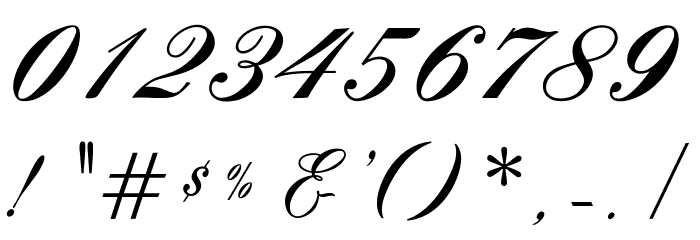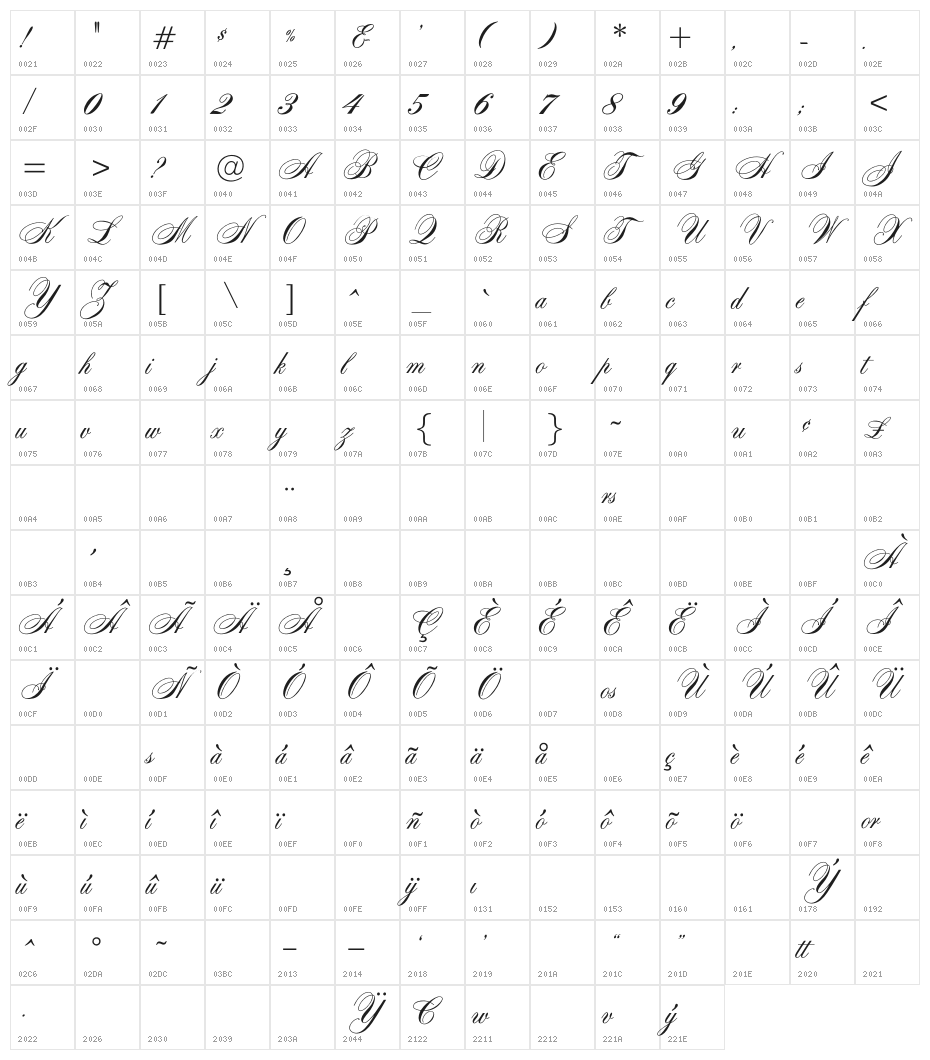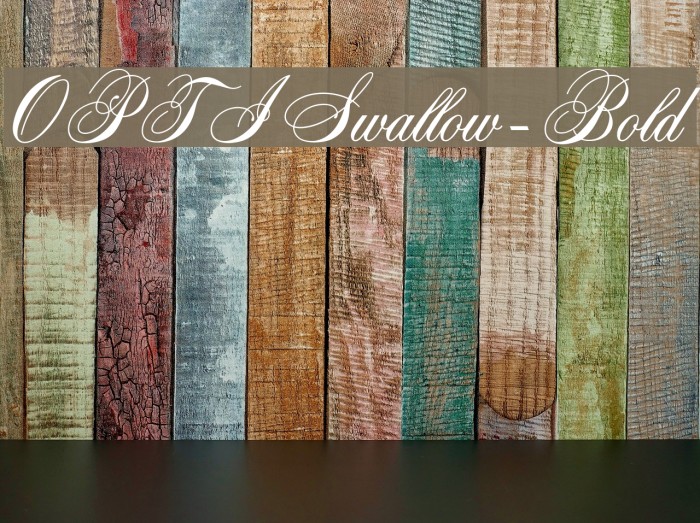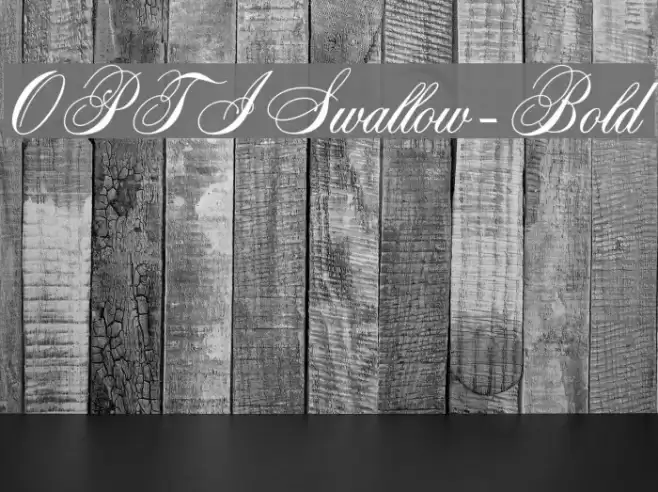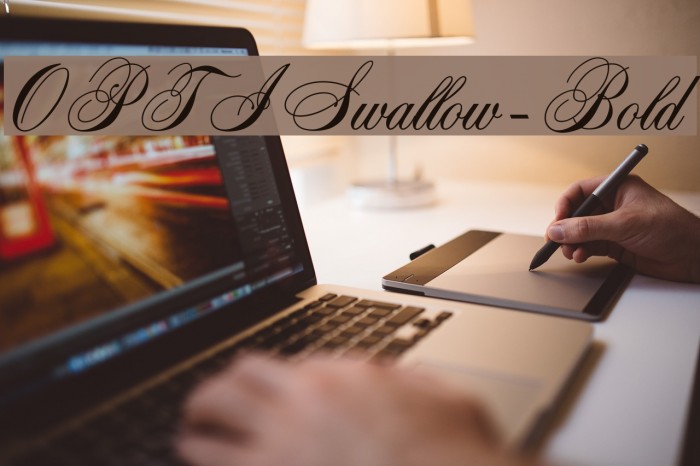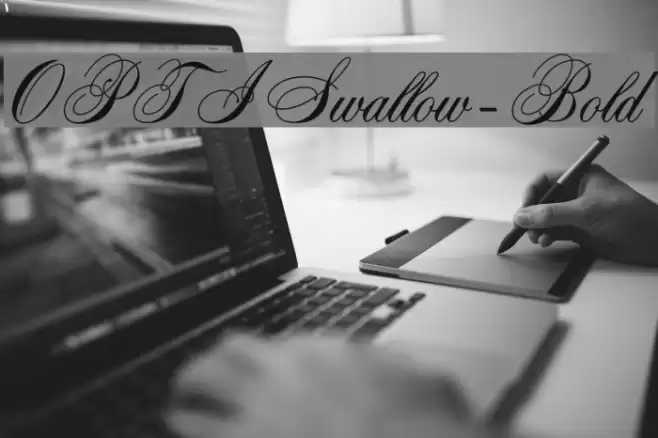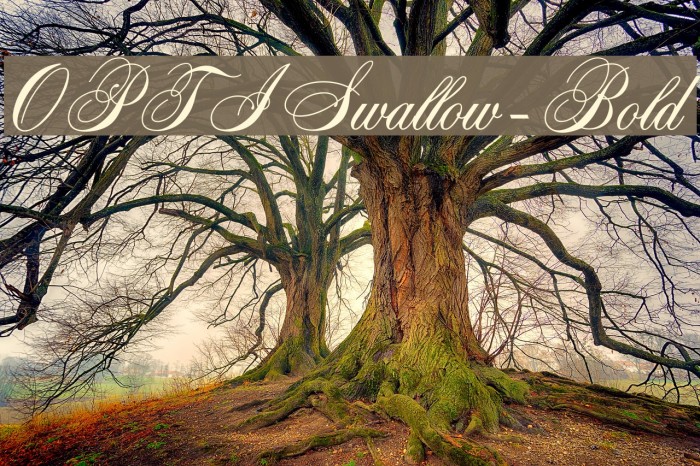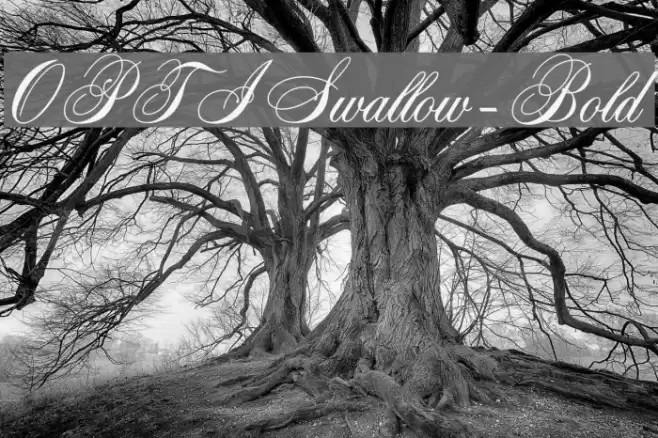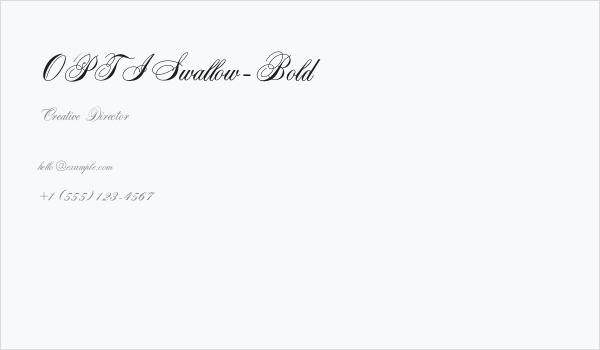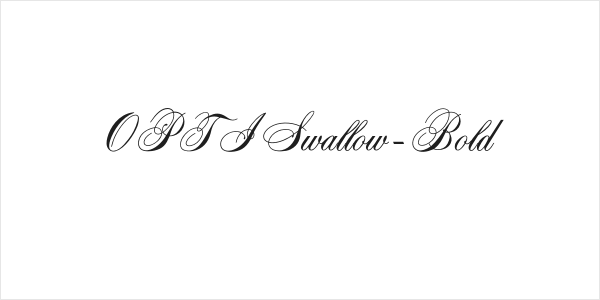
OPTISwallow-Bold Font
OPTISwallow-Bold Description
This elegant script font features a sophisticated and flowing design, characterized by its smooth, cursive strokes and graceful curves. The uppercase letters are ornate, with intricate loops and flourishes that add a touch of luxury and refinement. The lowercase letters maintain a consistent slant, enhancing the fluidity and continuity of the text. Numbers and special characters are crafted with the same attention to detail, ensuring a cohesive appearance across all elements. The font's bold weight adds a sense of strength and presence, making it suitable for impactful designs. Its high contrast between thick and thin strokes further emphasizes its decorative nature, making it ideal for formal invitations, branding, and high-end product packaging.